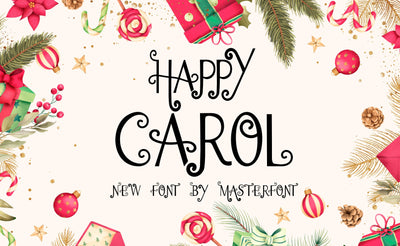
Happy Carol Font is an elegant, festive font created in the spirit of the Holidays and is meant to bring the feeling of joy and festivity in all of the projects where it is used. Happy Carol is perfect for your creative projects, personal or professional, cards, posters, posts and others and I guarantee you that your projects will get the attention you are looking for.